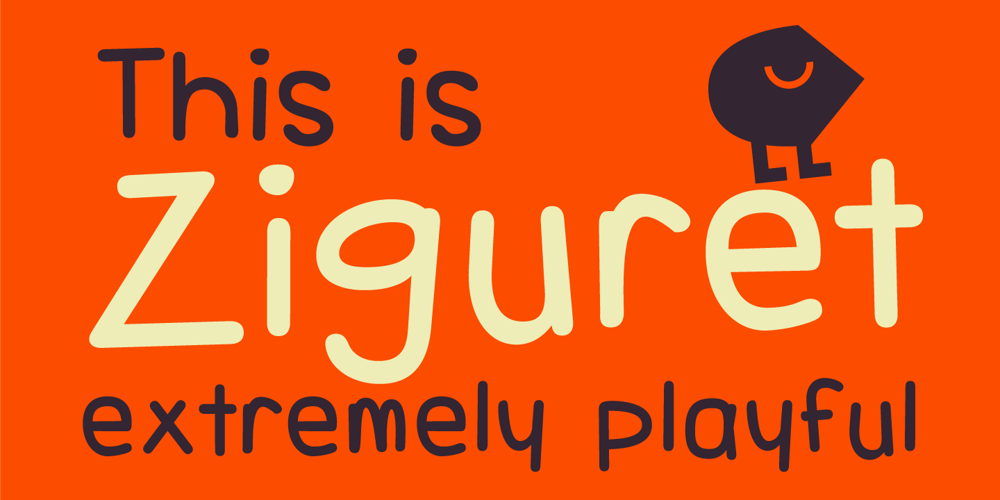
TOMO Ziguret Font Family was designed by TOMO Fonts and published by TOMO Fonts. TOMO Ziguret contains 1 styles and family package options. TOMO Ziguret! A handmade font that would love to play with your designs! Ideal for kids toys or when packaging is involved — We would love to see this one on beautifully crafted book.